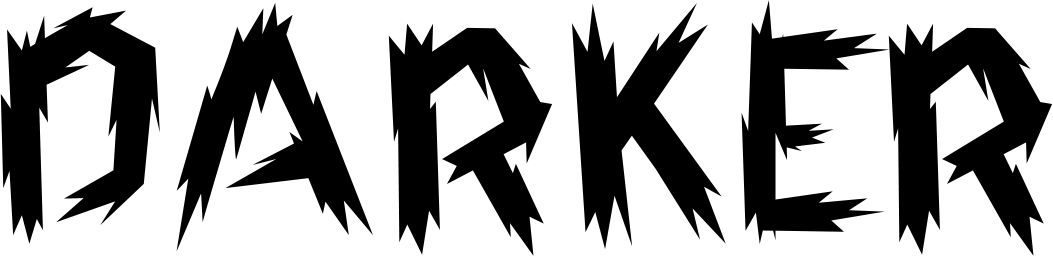
Darker Font
Engaged in finding a new horror font for your Halloween poster design? Here, without any trouble, one of the best has been prepared for you. This horror font with a unique retro and sharp design can be effective for designing any headers, scary movie titles, TV series, posters, brands, apparel, etc.
Although Darker font only has uppercase letters, highlighting your typography is not complicated with its intimidating style.